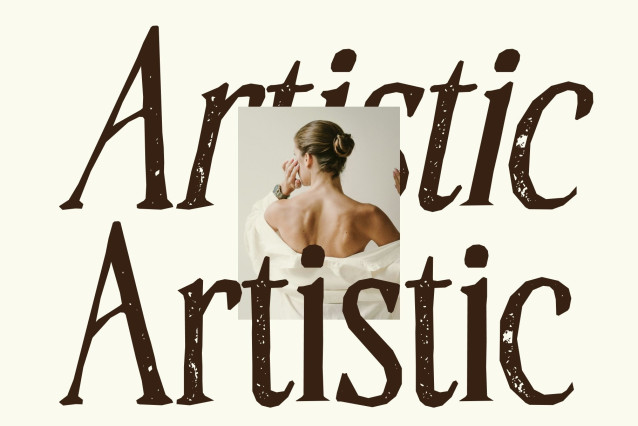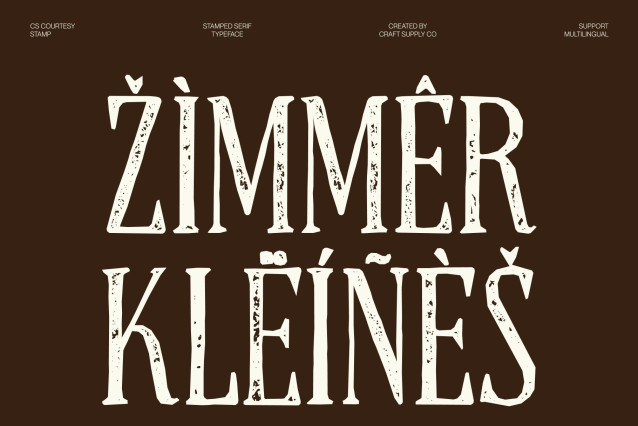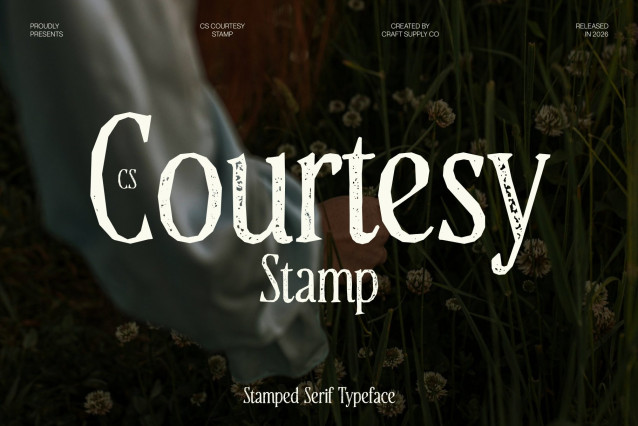
CS Courtesy Stamp Font
CS Courtesy Stamp – Elegant Serif with Timeless Sophistication
Refined Letterforms with Graceful Proportions
This font is a modern long serif typeface that blends refined elegance with contemporary clarity. Its slender, elongated letterforms and delicate serifs create a graceful rhythm across text, delivering a polished and luxurious visual presence that feels both classic and fresh.
Minimalist Structure with Classical Influence
Rooted in traditional serif typography, this font reinterprets classic forms through a minimalist approach. Ornamental details are simplified into purposeful shapes, allowing the typeface to maintain warmth and sophistication while embracing modern design sensibilities. The added stamp texture introduces a subtle vintage character, giving the font depth, personality, and a softly distressed charm.
Polished Identity with Excellent Readability
Carefully balanced proportions ensure strong readability at both large and small sizes. Whether used for striking headlines, elegant pull quotes, or refined packaging text, the font retains clarity while conveying a sense of high-end refinement and quiet confidence.